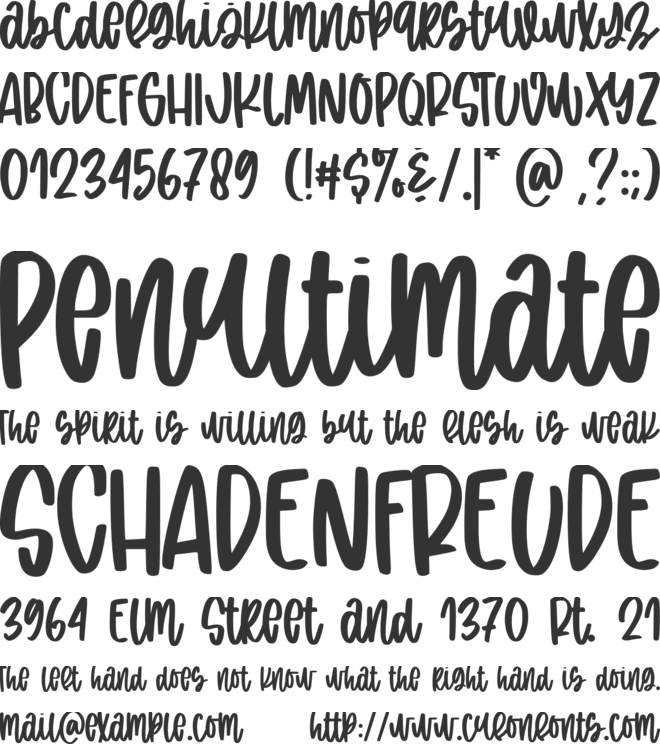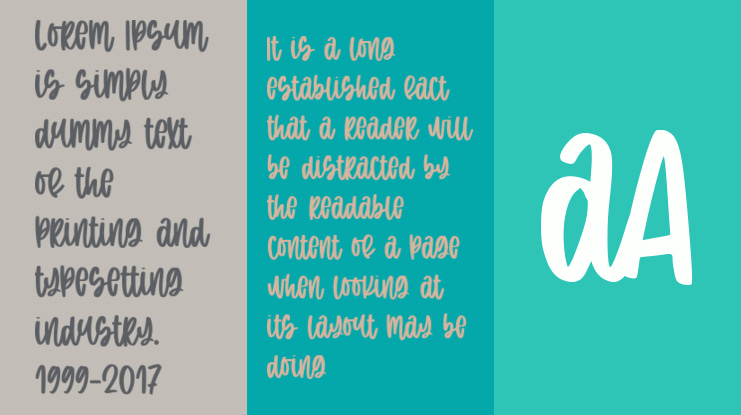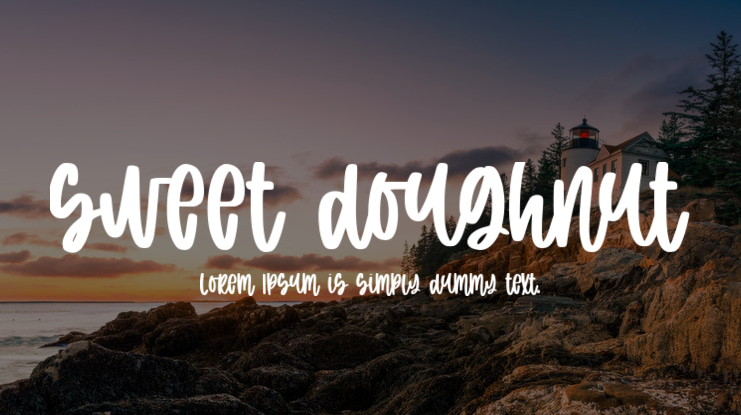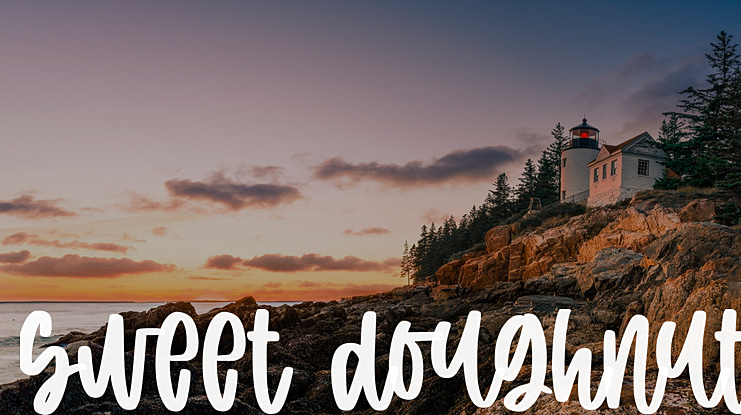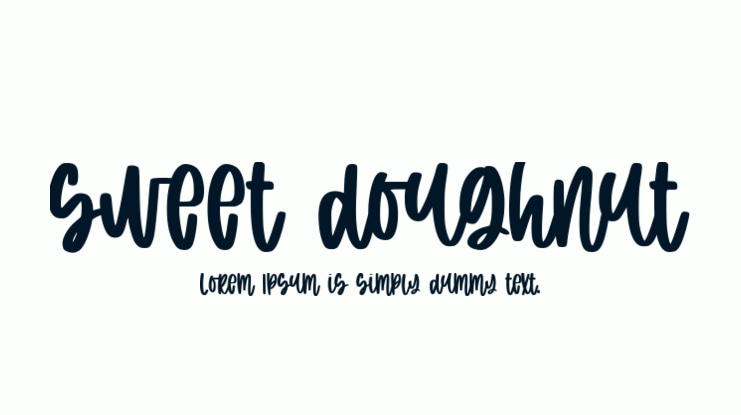
sweet doughnut Font
SWEET DOUGHNUT - a bold quirky script -
Sweet Doughnut is a quirky and casual handwritten font. Get inspired by its incredibly versatile style and use it to create joyful designs!